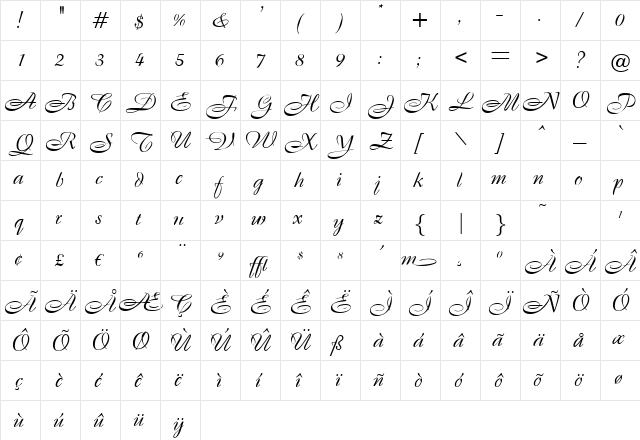
B820-Script Regular
Design Context for B820-Script Typeface
B820-Script brings a calligraphic fluidity to the page — its connecting strokes and expressive curves give it an unmistakably human quality.
Font Pairing: Combine B820-Script with a simple geometric sans for maximum contrast — the tension between flowing curves and clean structure is a classic typographic pairing.
Pro Tip: Pair B820-Script with a clean sans-serif for supporting text. The contrast between fluid script and geometric structure creates an elegant typographic hierarchy.